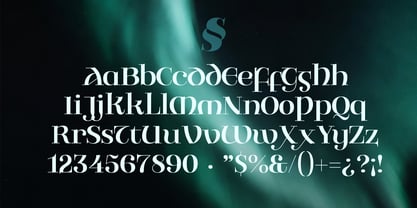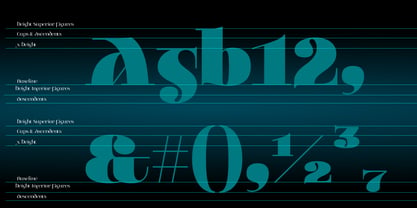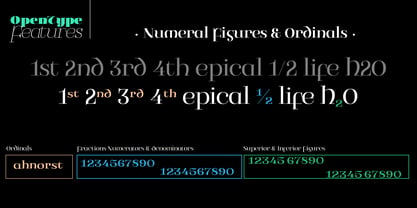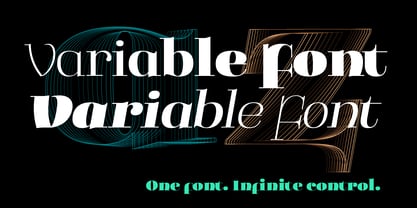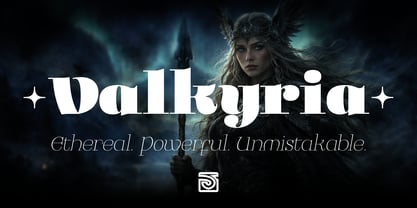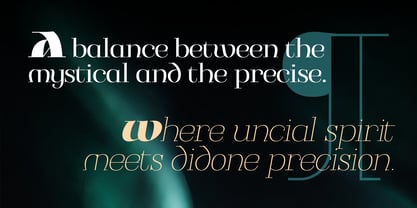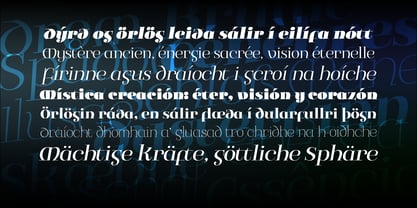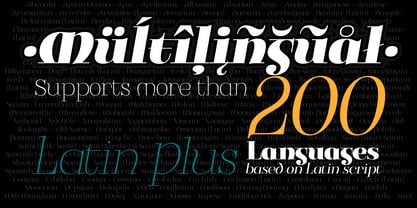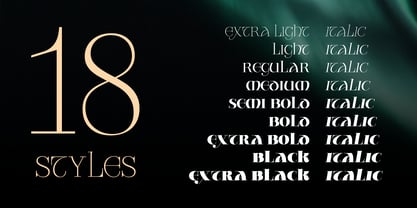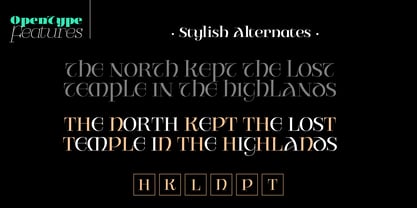
Valkiria
The Valkiria Font Family was designed by John Vargas Beltrán and published by JVB Fonts. Valkiria contains 19 styles and family package options. More about this family
Valkiria is the harmonious meeting point between two typographic worlds: the organic spirituality of uncial forms and the refined precision of high-contrast Didones. This typeface family is designed to be not only read but felt. Inspired by Norse mythology, Valkiria captures the suspended moment between the ethereal and the powerful, evoking ancestral and mystical qualities while seamlessly fitting into contemporary contexts where fashion, sophistication, and visual identity demand a distinctive voice. As a versatile superfamily, Valkiria offers a complete range of 18 styles—from delicate Extralight to commanding Extrablack—along with carefully crafted italics, ensuring formal consistency and expressive strength across every weight. This broad spectrum allows for smooth transitions from high-end editorial compositions to bold, character-driven branding. Additionally, Valkiria includes a Variable Font, providing dynamic control over weight and slant. This technology enhances flexibility, optimizing workflows and delivering a more fluid, adaptive typographic experience across digital and print environments. On the technical side, Valkiria integrates OpenType features that enhance typographic control, allowing for refined detailing and nuanced composition. Its language support spans over 200 languages, including Latin-1, Latin Extended-A, and Latin Extended-B, making it a truly global tool for designers in diverse markets. Every stroke is meticulously designed to balance contrast and flow, featuring subtle terminals, breathing curves, and visual tension that infuse rhythm and personality into the text. Valkiria is more than just a typeface—it is an aesthetic statement: delicate yet assertive, feminine yet strong, classic yet unmistakably contemporary. Ideal for editorial design, branding, packaging, fashion, and visual communication projects that aim to stand out through elegance and authenticity. Valkiria doesn’t follow trends; it transcends them.